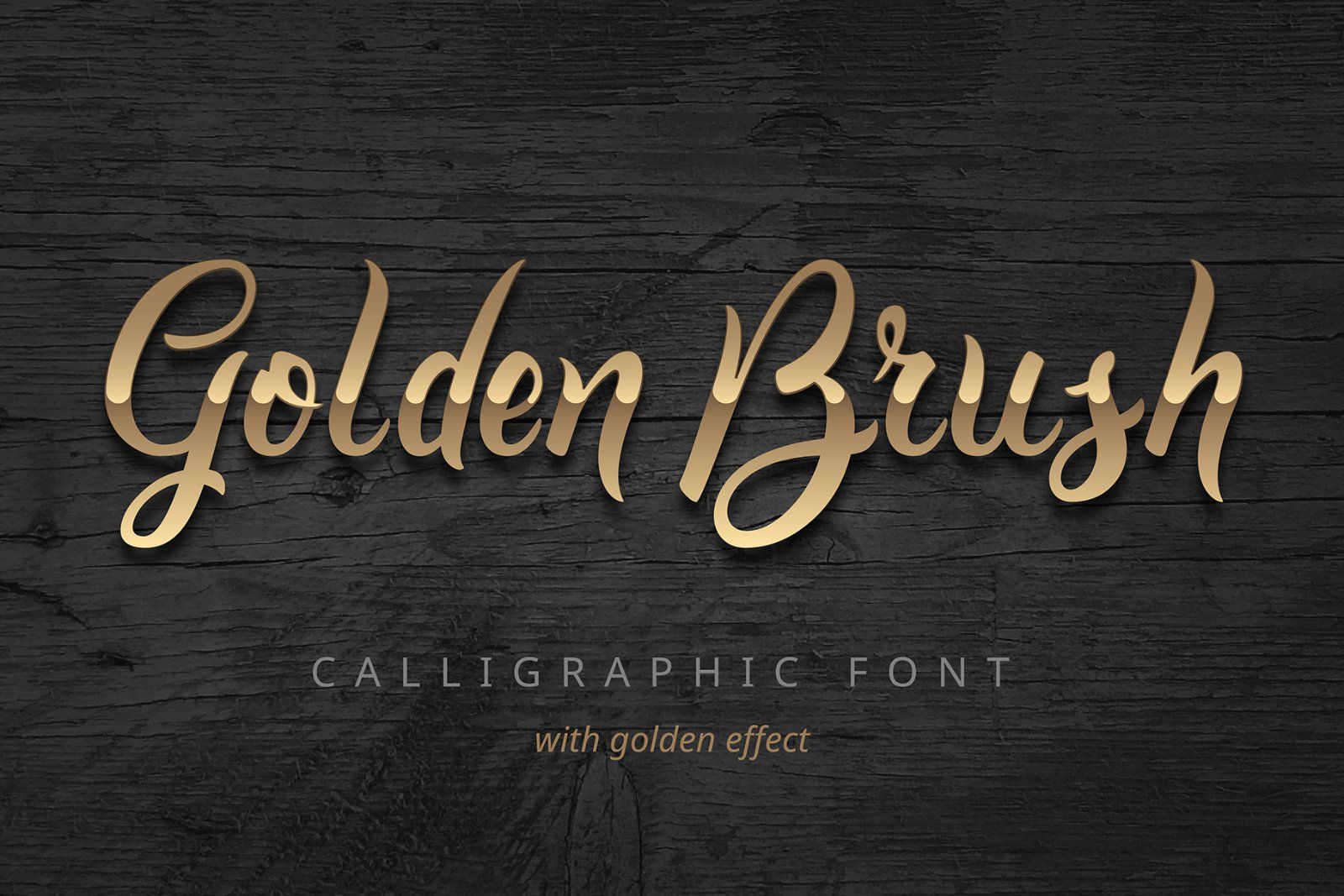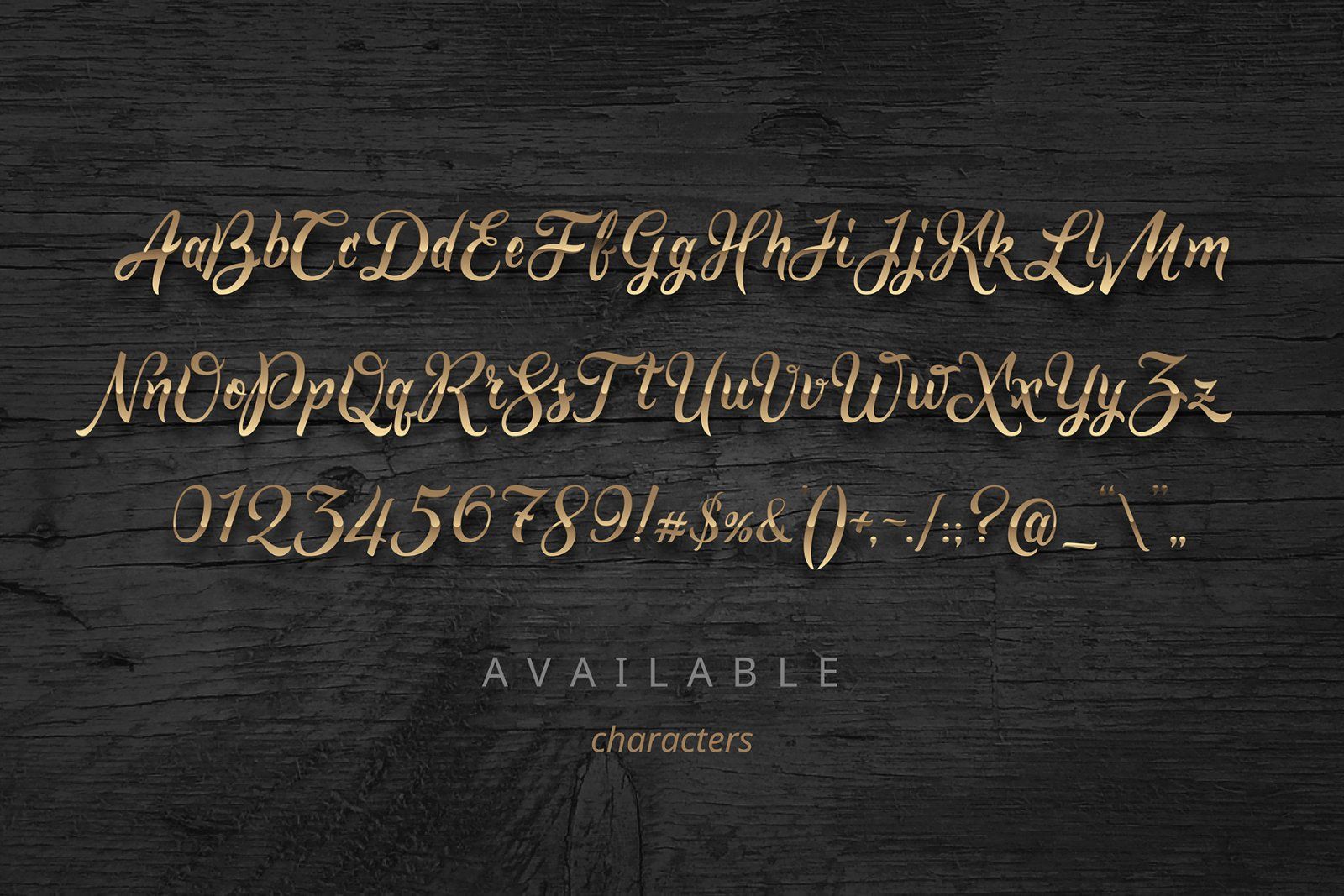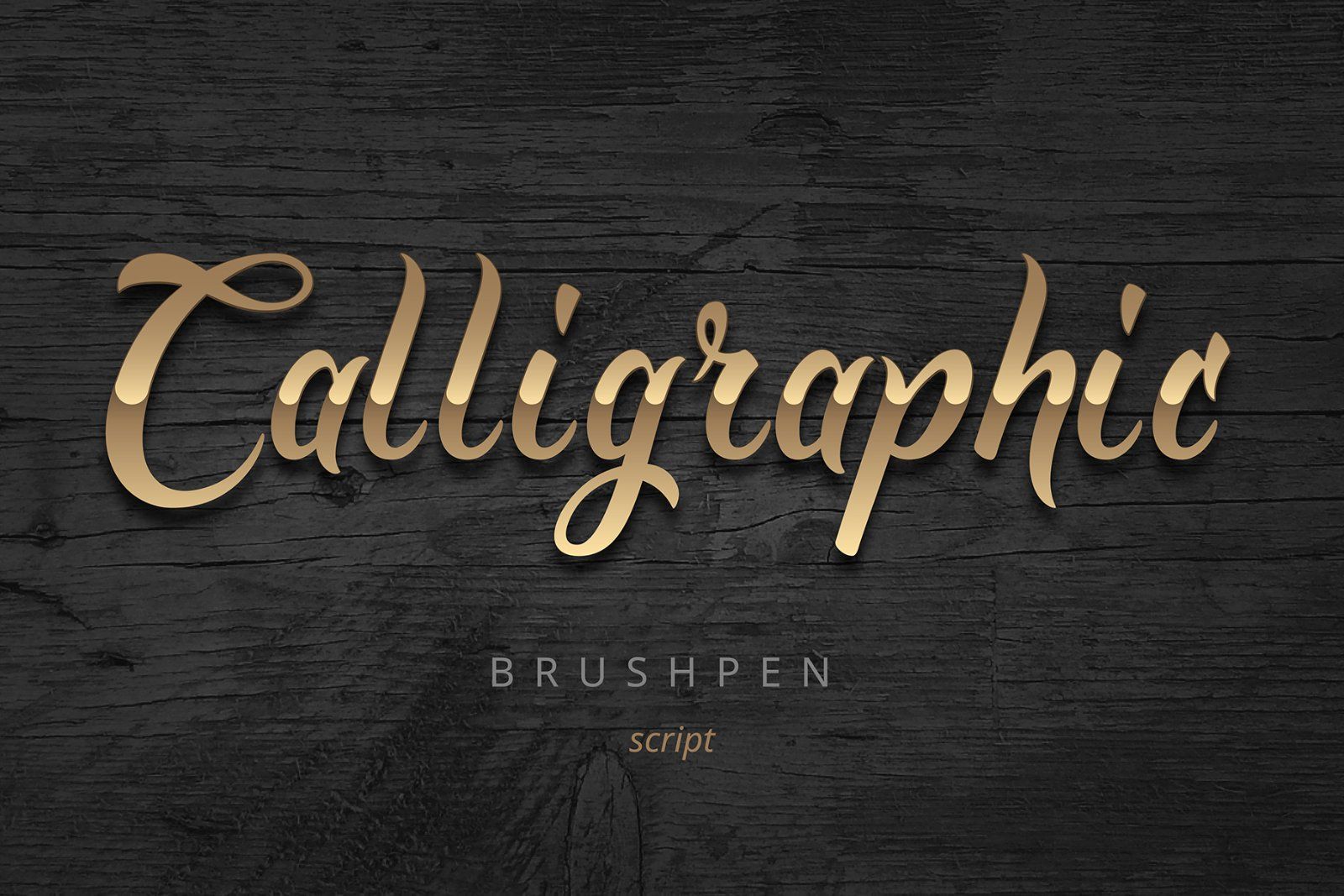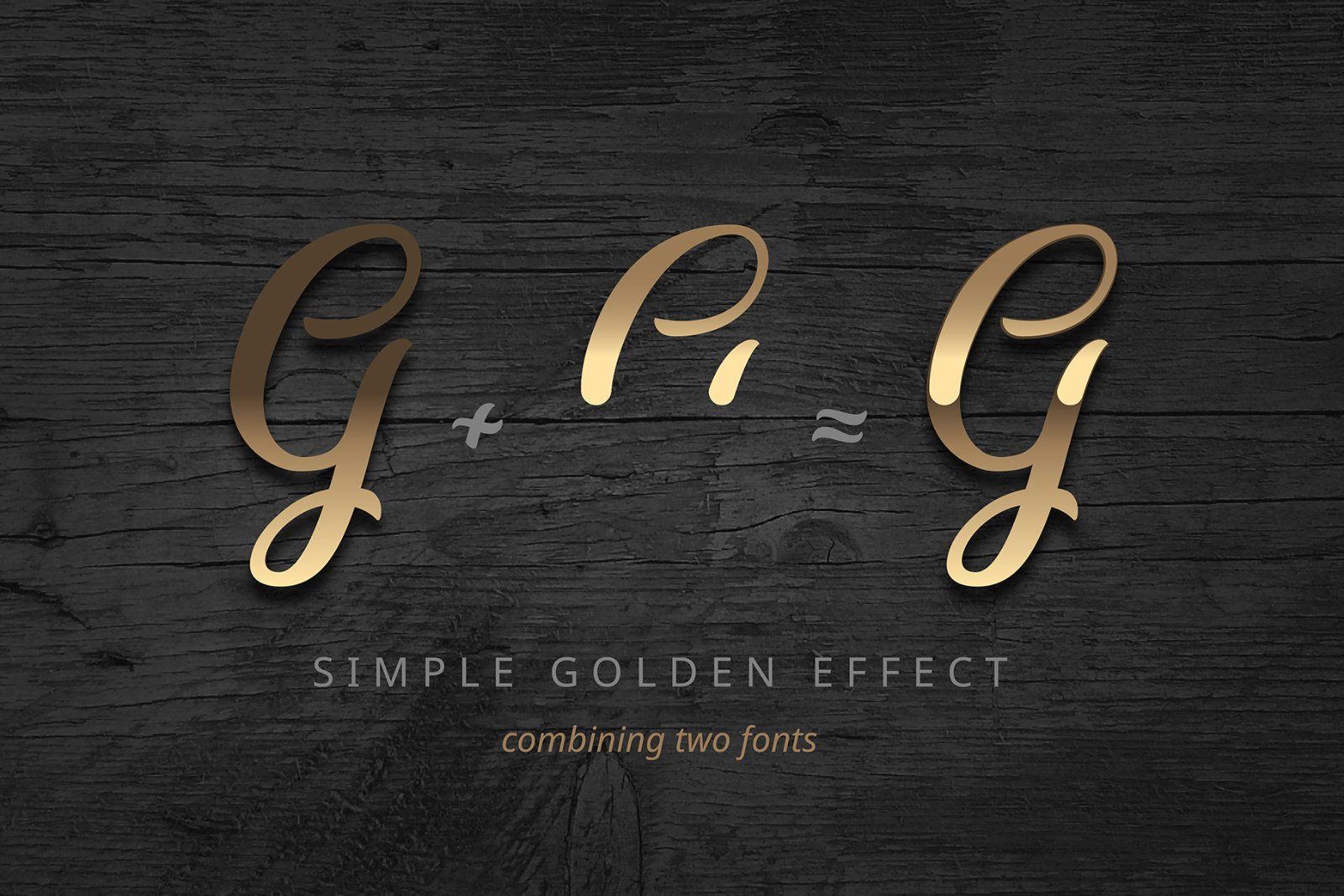
Introducing Golden Brush font. It's based on handmade calligraphy with adding a nice golden shiny effect. It consists of two font files: one for base font and another for highlight shape. You can find a sample.ai and sample.psd files inside with editable text objects (layers).